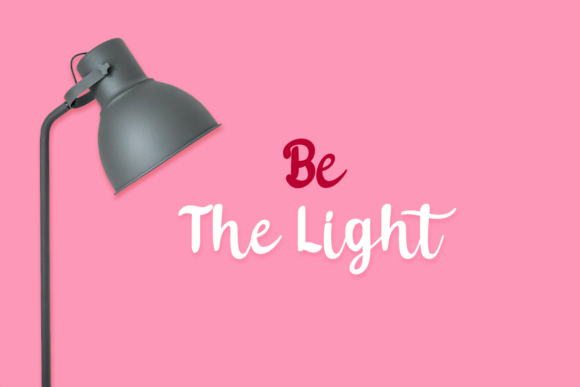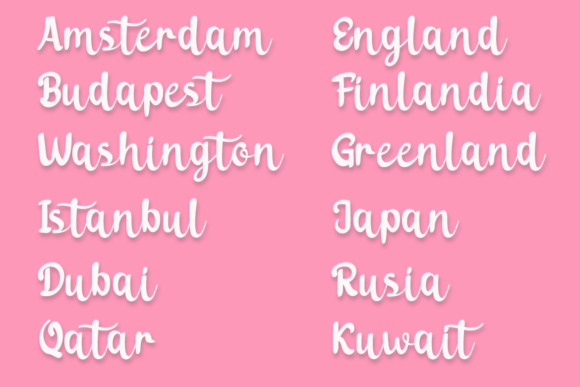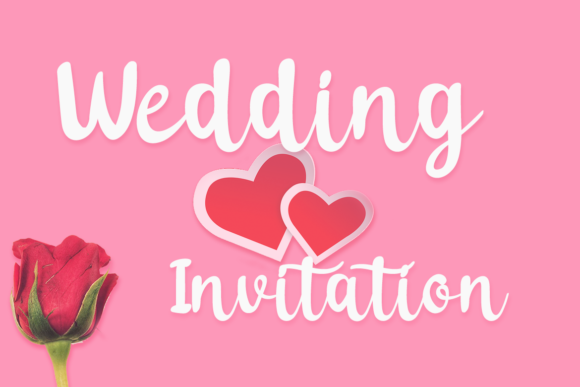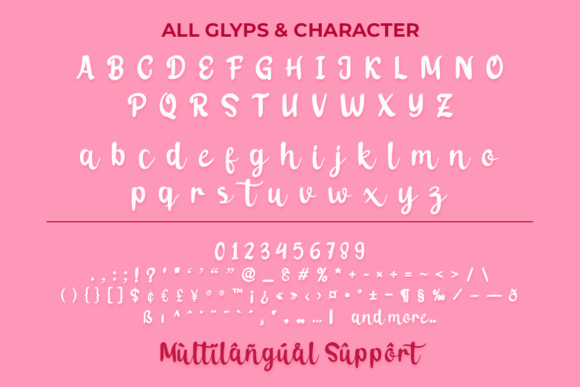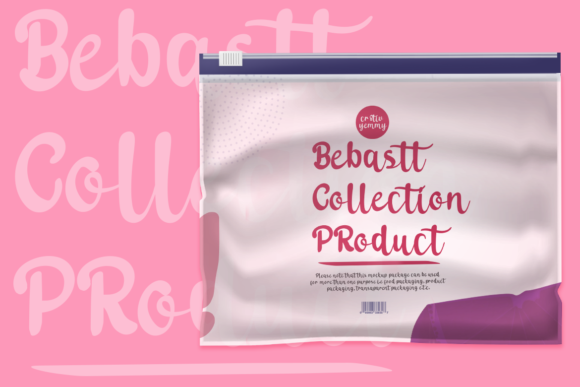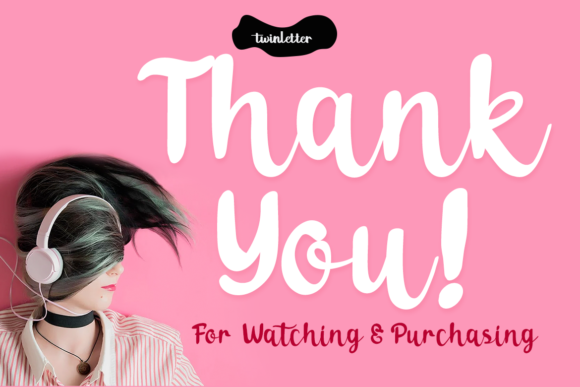
Bebastt Font
About Bebastt Font
Bebastt is a whimsical handwritten font. It features an incredibly classic style, while still keeping a friendly feel. It will elevate a wide range of design projects to the highest level, be it branding, headings, wedding designs, invitations, signatures, logos, labels, and much more!